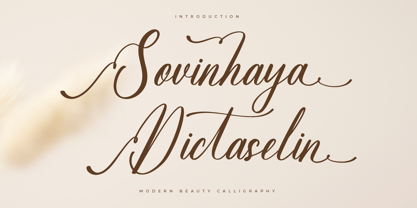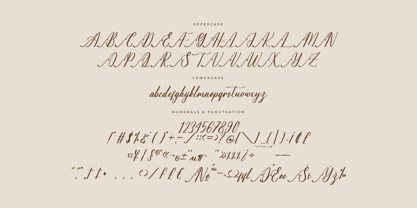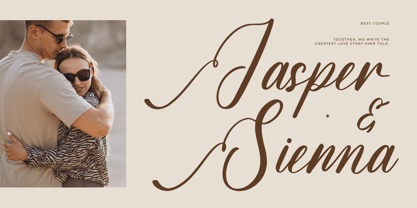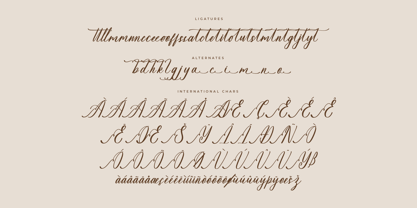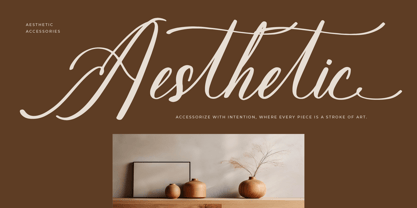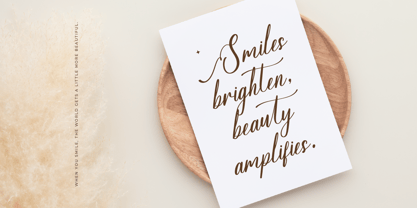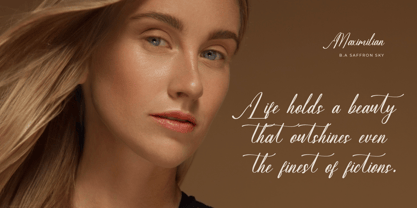
Sovinhaya Dictaselin
by Letterena Studios
The Sovinhaya Dictaselin Font Family was designed by Heru Utama Putra and published by Letterena Studios. Sovinhaya Dictaselin contains 2 styles and family package options. More about this family
Sovinhaya Dictaselin is a stylish script font that exudes contemporary grace and timeless flair. With meticulously crafted letterforms and an elegant flow, it seamlessly combines modern aesthetics with classic sophistication. Ideal for projects seeking a touch of refined charm, Sovinhaya Dictaselin adds a distinctive and polished allure to your designs.